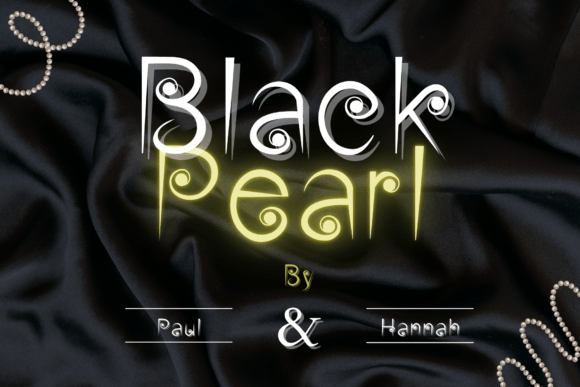
The Quest for the Perfect Festival Font: Discovering Black Pearl
I’ll never forget the time I was working on a festival poster design, and I just couldn’t find the right font. The client wanted something playful, yet elegant, and I was determined to deliver. That’s when I stumbled upon the Black Pearl font, and it was love at first sight! ✨ In this article, I’ll share my experience with this beautiful font, its features, and how to make the most of it in your designs.
A Personal Review of Black Pearl
- ✨ Unique and playful design, perfect for festivals and creative projects
- ✅ Excellent for headlines and titles, with a touch of elegance
- 🌈 Beautifully crafted, with attention to detail and a touch of sophistication
While Black Pearl is an amazing font, there are a few things to keep in mind: 🤔
- ⚠️ Some characters may appear a bit condensed, which can affect readability at smaller font sizes
- ⚠️ Limited use of lowercase letters, which may not be ideal for body text
- Experiment with OpenType features, such as stylistic alternates and glyphs, to add visual interest
- Choose the Black Pearl font and explore the OpenType features, such as ligatures and stylistic sets
The Story Behind Black Pearl
Black Pearl is part of the Gems collection, a series of fonts designed to add a touch of elegance and sophistication to your designs. The author of Black Pearl took inspiration from their original font, The Pearl, and adapted it to create a more playful and unique design. The result is a font that’s perfect for festivals, creative projects, and any design that requires a touch of fantasy. 🌟
Q: What is the Black Pearl font best used for?
A: Black Pearl is ideal for creative projects, festivals, and designs that require a playful yet elegant touch.
Q: Is Black Pearl a script font?
A: Black Pearl is a decorative font with a unique and playful design, but it’s not a traditional script font.